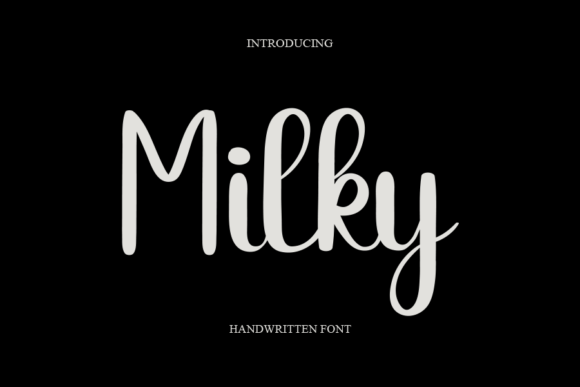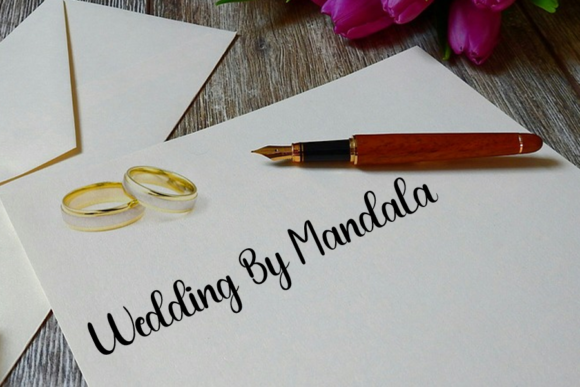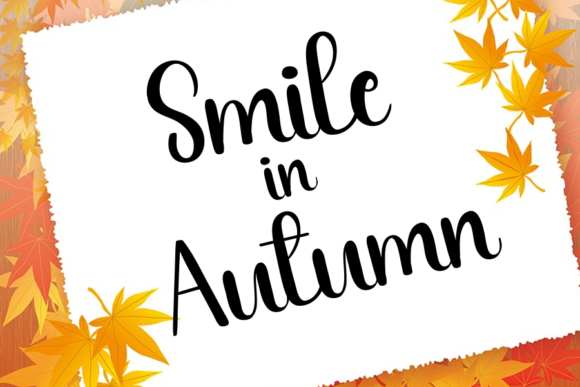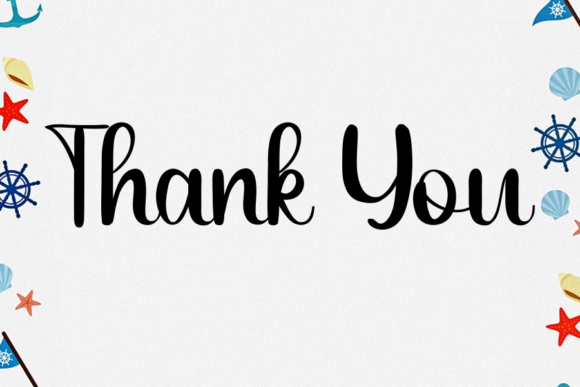
About Milky Font
Milky is a magical script font that exudes elegance and charm. Carefully crafted with a touch of sophistication, this font is perfect for adding a whimsical and enchanting feel to your designs. Whether you’re looking for fonts for Instagram, creating calligraphy scripts, or working on DIY projects, Milky will turn your creative ideas into true pieces of art.
With its graceful and fluid letterforms, Milky captures the essence of beauty and fantasy. The delicate strokes and intricate details give the font a captivating quality, evoking a sense of wonder and magic. It is particularly well-suited for creating dreamy designs, such as inspirational quotes, fairy tale-themed projects, invitations, and more.
Milky’s versatility makes it a great choice for social media graphics and Instagram posts. Its unique and enchanting style will make your content stand out and create a captivating visual experience for your audience. Whether you’re sharing inspiring messages, showcasing your brand, or promoting special events, Milky will add a touch of elegance and fantasy to your designs.
For calligraphy enthusiasts and DIY projects, Milky offers a delightful tool for creating stunning handmade designs. Whether you’re working on personalized gifts, custom artwork, or decorative elements, this font will infuse your creations with a whimsical and magical touch. Its intricate letterforms and ornamental details make it a joy to use in various artistic endeavors.
Milky prioritizes readability while maintaining its enchanting appearance. The carefully balanced letterforms ensure that your message is easily legible, even with the font’s decorative elements. This makes it suitable for a wide range of design applications, both in print and digital formats.
Additionally, Milky provides a variety of alternate characters, ligatures, and swashes to enhance your designs. These additional glyphs allow you to customize and embellish your artwork, giving you even more creative freedom. Whether you want to add flourishes, decorative swashes, or unique letter combinations, Milky’s features will help you bring your imagination to life.
In summary, Milky is a magical script font that brings elegance, charm, and a touch of fantasy to your creative projects. Whether you’re designing for Instagram, creating calligraphy scripts, or working on DIY projects, this font will transform your ideas into true pieces of art. Download Milky now and let its enchanting allure inspire your creativity.